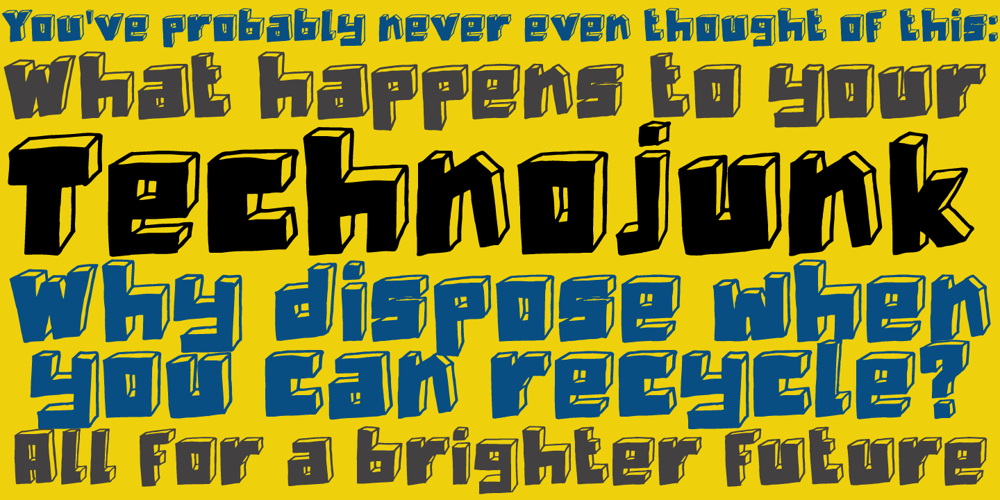
Technojunk Font Family was designed by David Kerkhoff and published by Hanoded. Technojunk contains 1 styles and family package options. I came across an article in which the author warned about the growing pile of technojunk. It appears we throw away 50 million tonnes of unwanted gadgets EVERY YEAR – and, yes, that number is growing as these are the figures for 2012. 50 million tonnes – just think of that! The new font I was working on had a squarish look – almost computer like, so I decided to call it technojunk. Hopefully you won’t throw it away… Technojunk is a 3D font, every glyph was drawn by hand. It is fat, fun and very useful. Try it out!